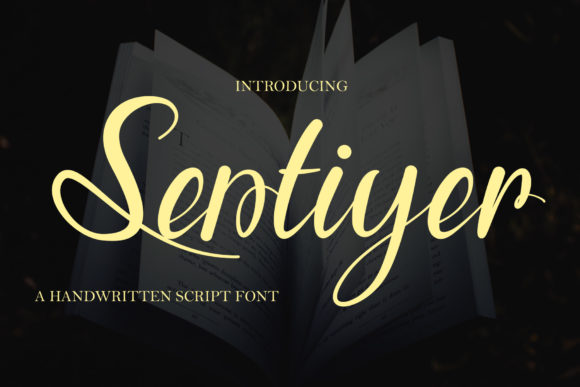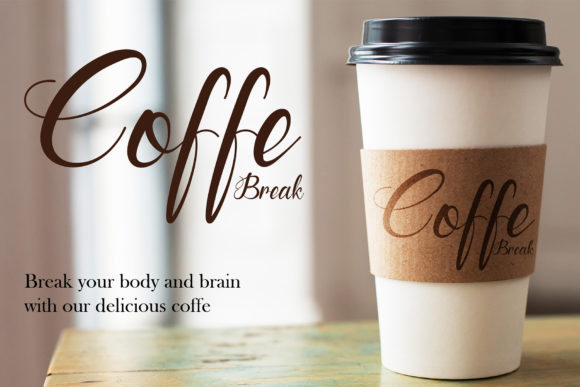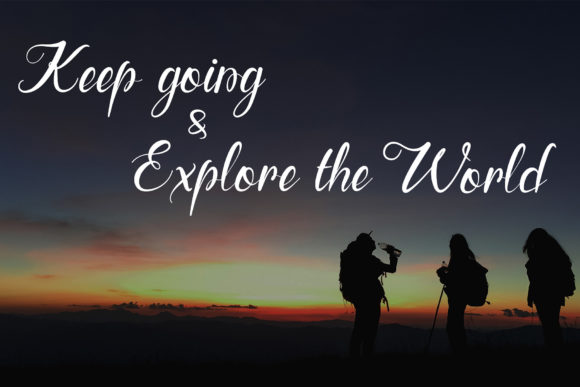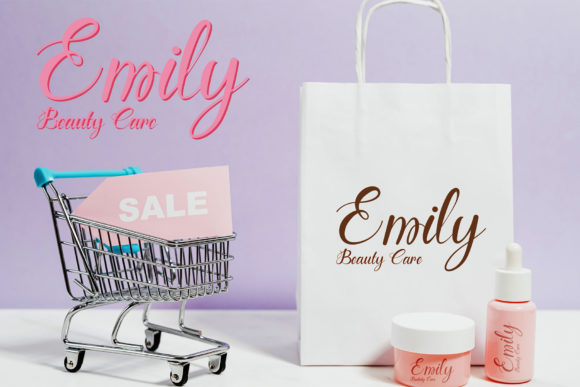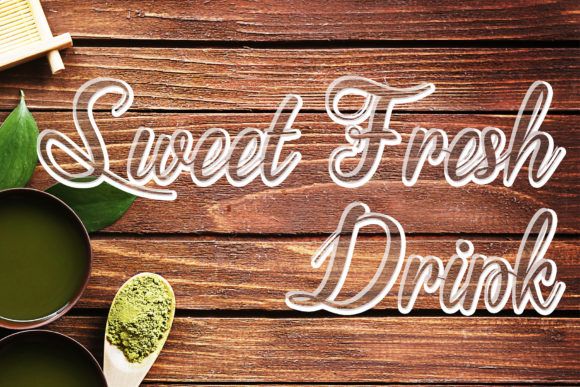
Sentiyer Font
About Sentiyer Font
Sentiyer is a sweet and cursive handwritten font. This gentle font will look gorgeous on a variety of design ideas. It will add a joyful and romantic touch to each of your projects!